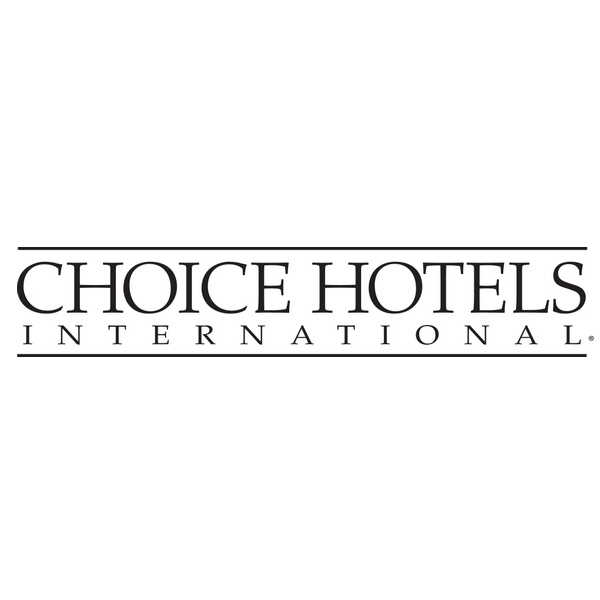
Choice Hotels Font
Fonts in UseChoice Hotels International is a global hotel chain with over 7,000 properties in more than 40 countries. Their brands include Comfort Inn, Quality Inn, Econo Lodge, and more, catering to a range of budgets and travel preferences.
The Choice Hotels logo most likely uses Palatino Pro Roman font, designed by Hermann Zapf, inspired by his own calligraphy. For further information on this font, click here. However, it should be noted that in 2015, Choice Hotels unveiled a new logo designed by McCann New York.